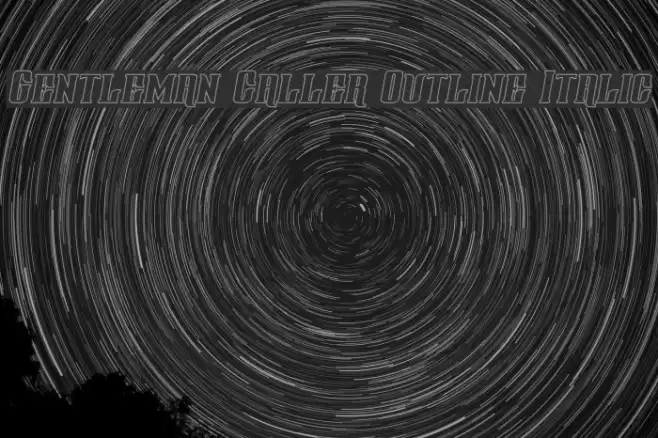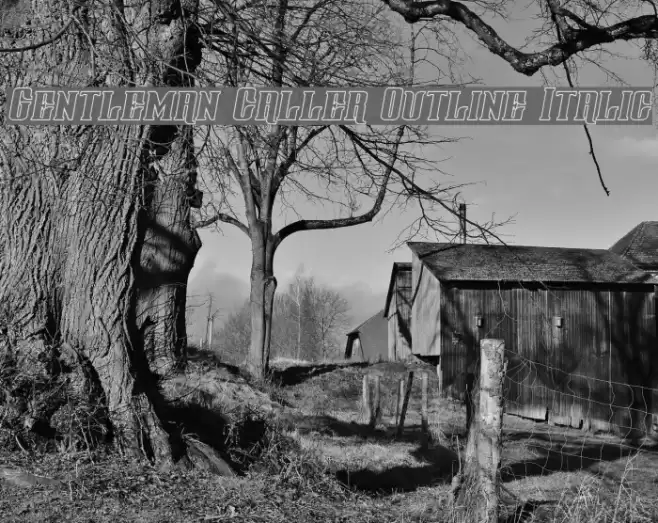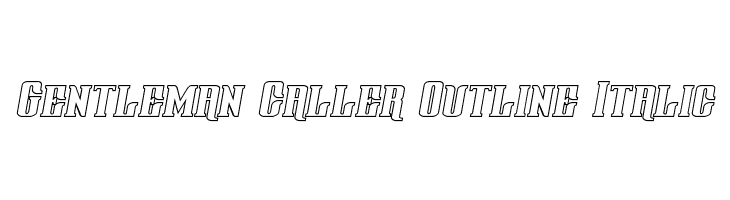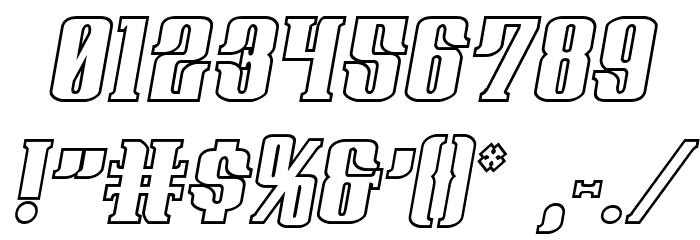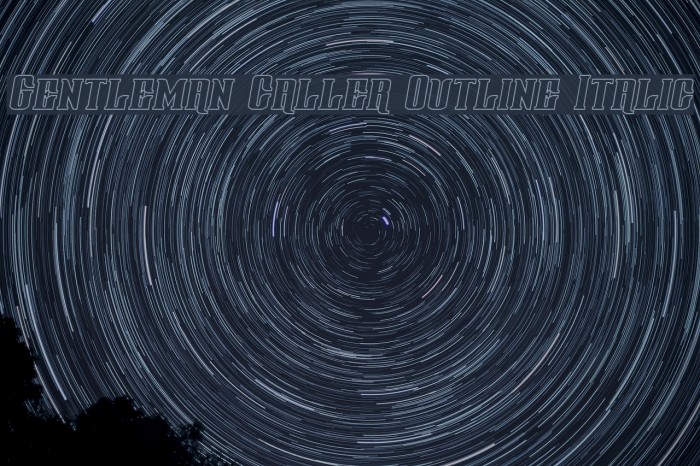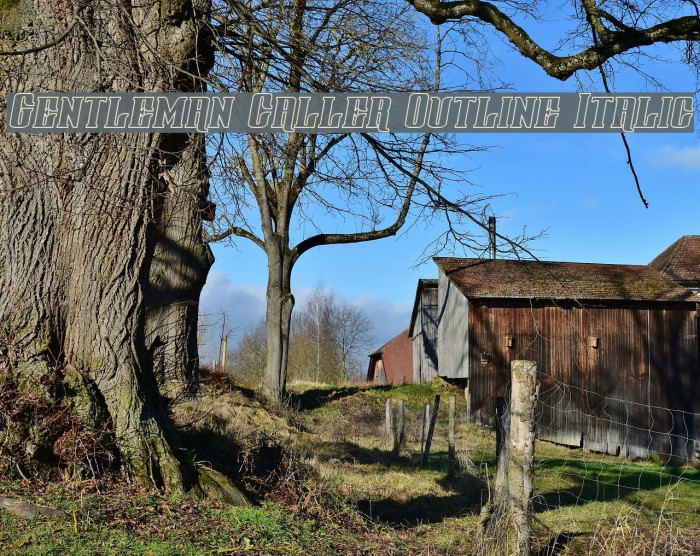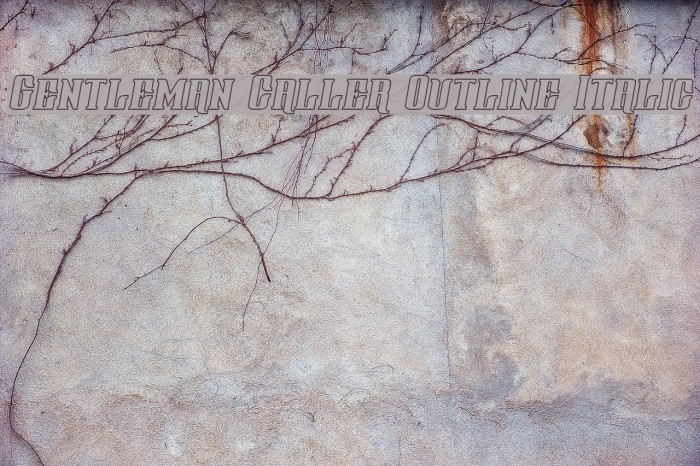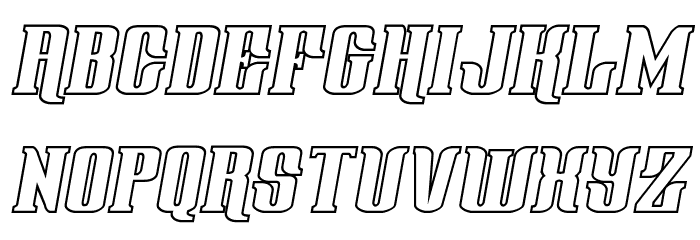
Gentleman Caller Outline Italic Font
Gentleman Caller Outline Italic Description
This font features a bold, outlined style with a distinct italic slant, giving it a dynamic and energetic appearance. The uppercase and lowercase letters maintain a consistent height, creating a uniform look across the text. The characters are outlined, providing a hollow effect that adds depth and dimension. The strokes are thick, enhancing the boldness of the font, while the italic angle adds a sense of motion and fluidity. The numbers and special characters follow the same outlined and italicized style, ensuring consistency throughout. This font is particularly eye-catching and suitable for designs that require a strong visual impact.
A bold, outlined, italic font with a dynamic and energetic style from Uncategorized fonts.
- Proposed Projects: Ideal for posters, headlines, logos, and branding materials that require a bold and distinctive look.